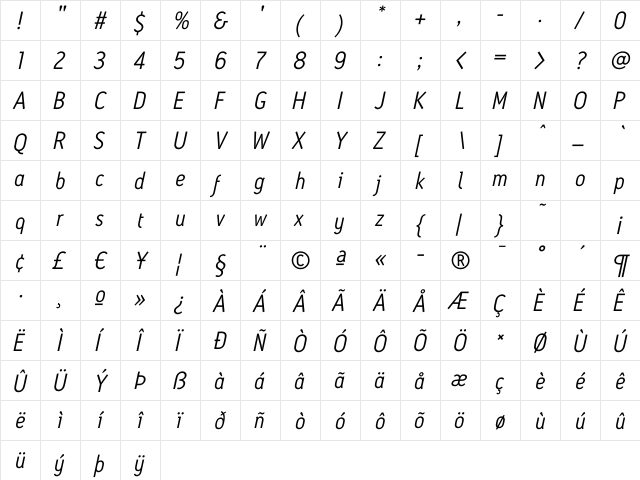
AntitledBook Italic Regular
Design Context for AntitledBook Italic Typeface
AntitledBook Italic takes a measured approach to typography — its balanced proportions and neutral character make it a reliable workhorse for both digital and print work. Its italic angle brings a sense of urgency and motion to the letterforms.
Pro Tip: Use AntitledBook Italic for emphasis, pull quotes, and subheadings where its slanted energy can add rhythm to the layout.